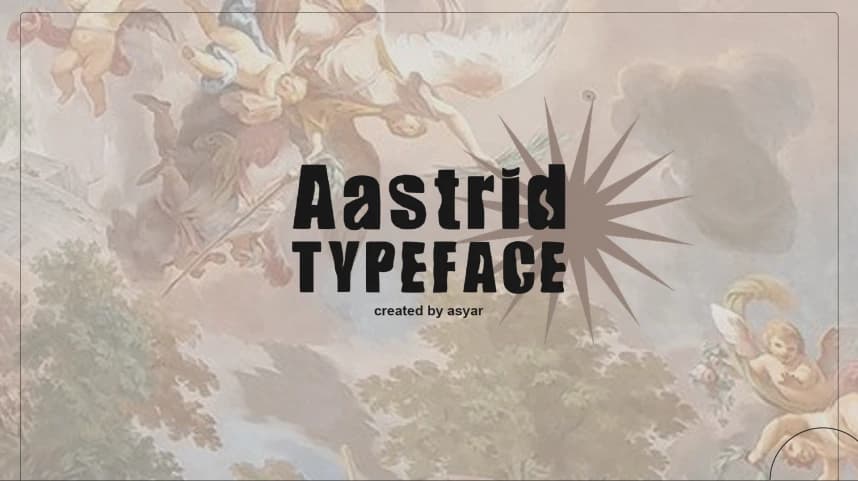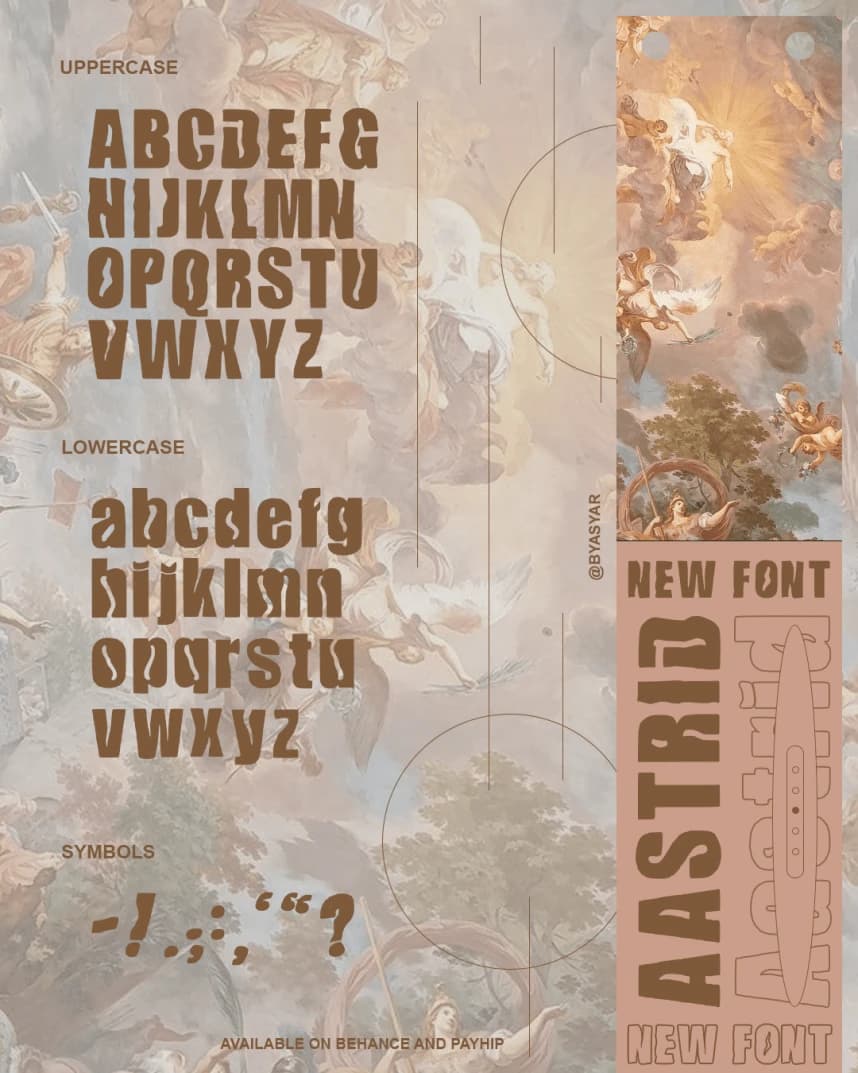
Aastrid Font
Astrid Font is a distorted and corrupted font, made especially for titles. The font was created by me (by asyar) in 2022 and is for free personal use only; commercialization and distribution by other means is strictly prohibited.